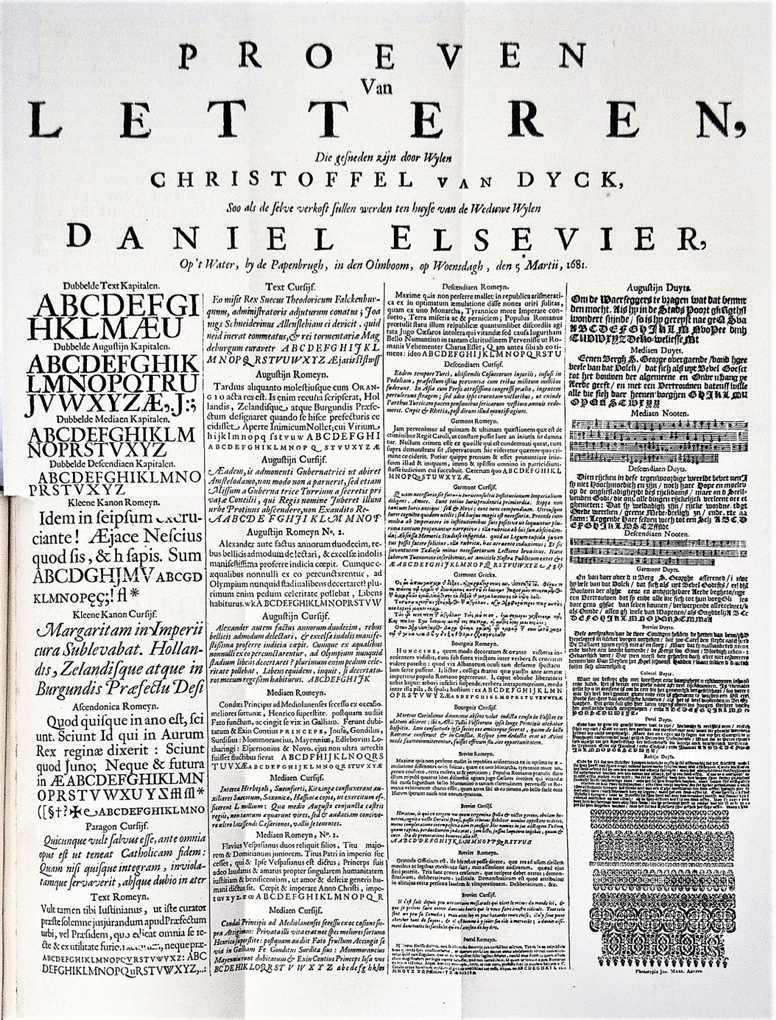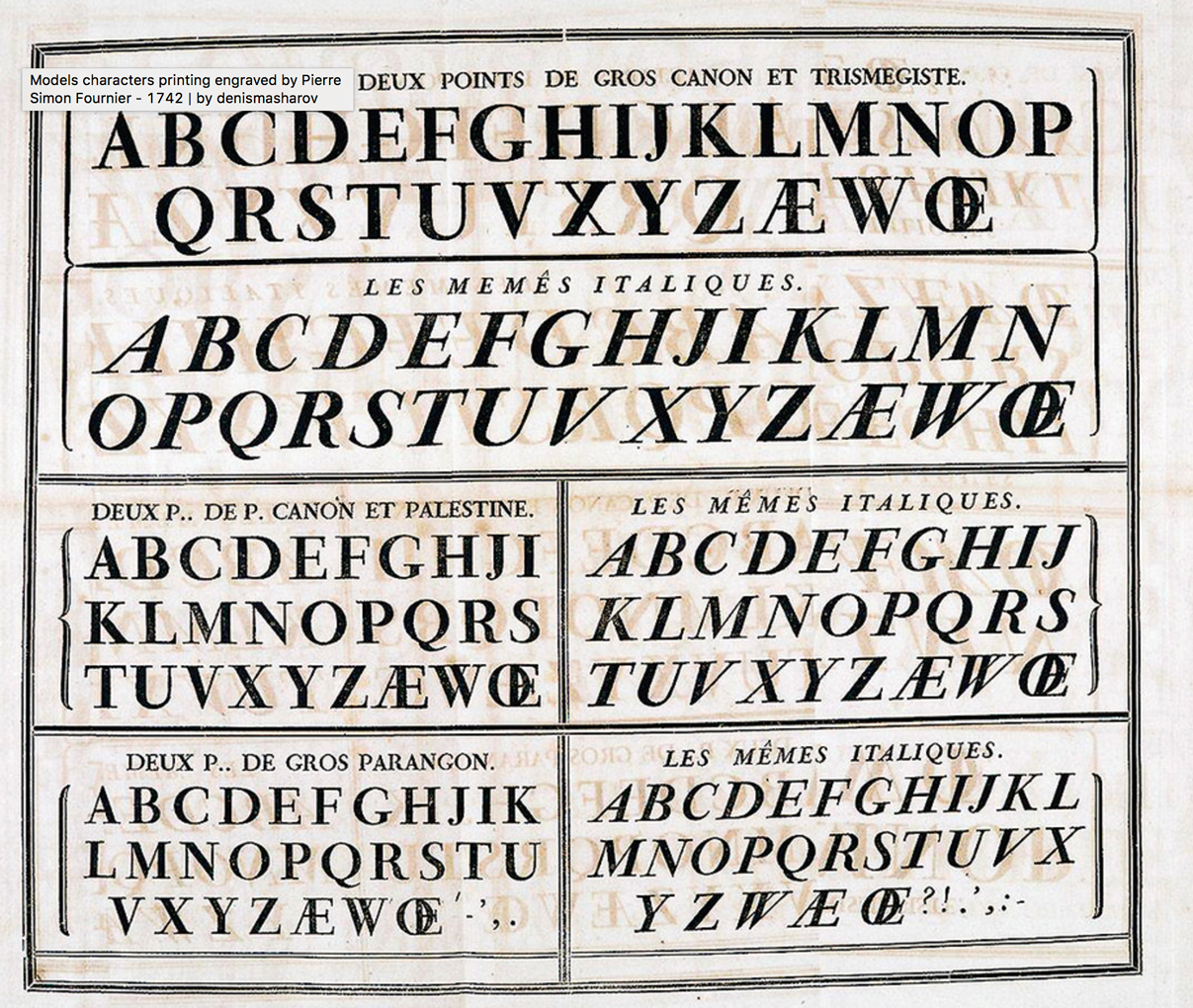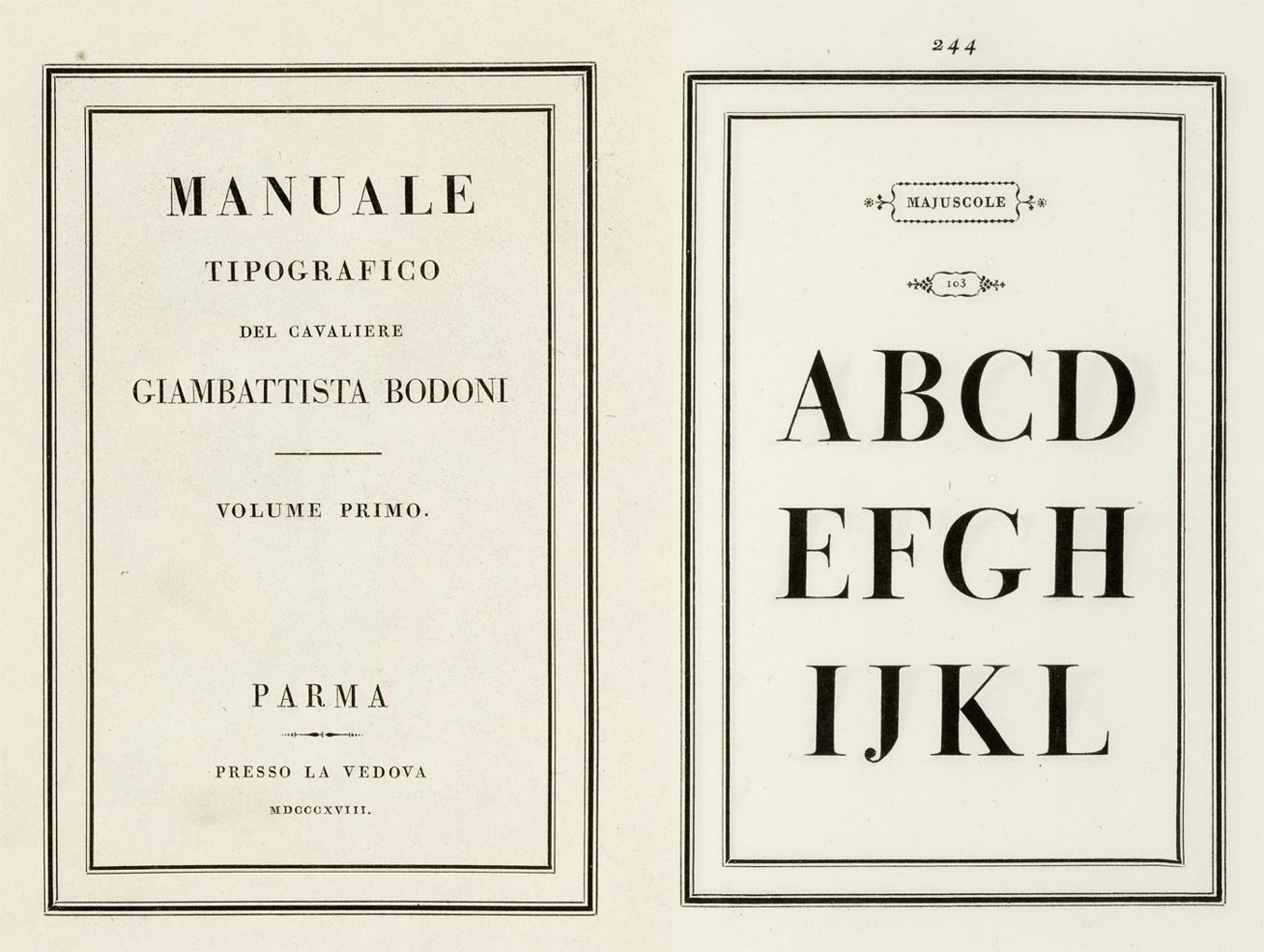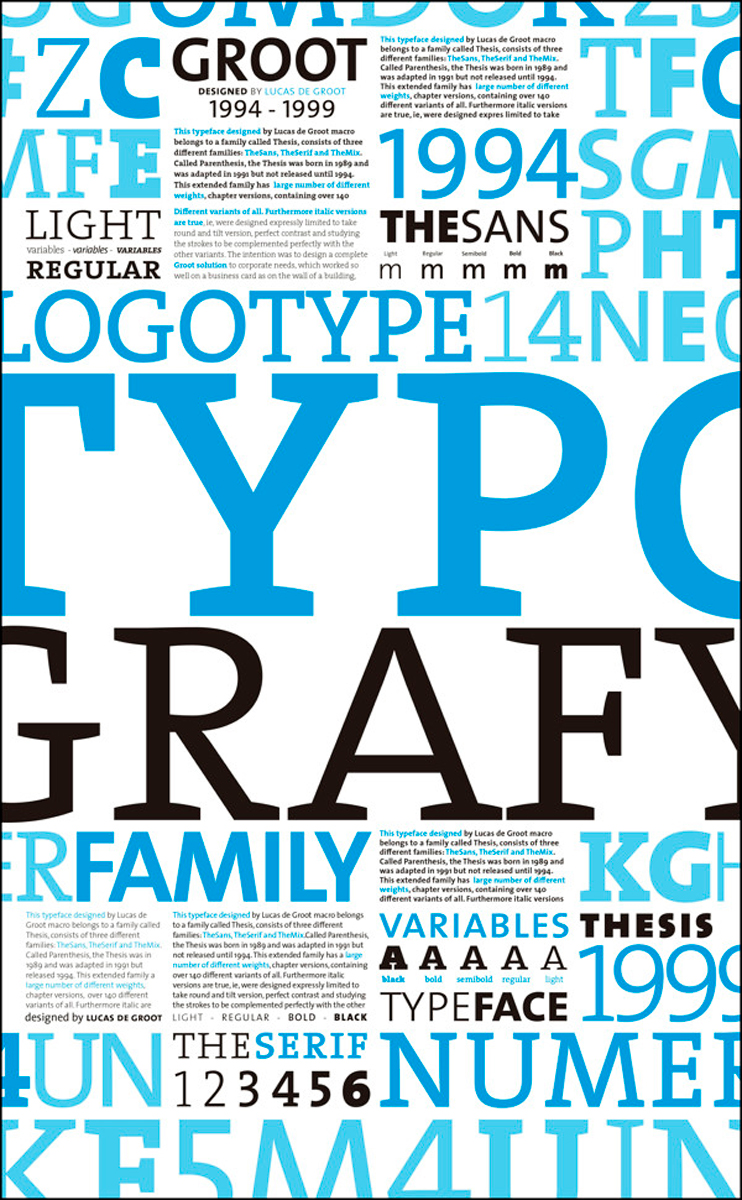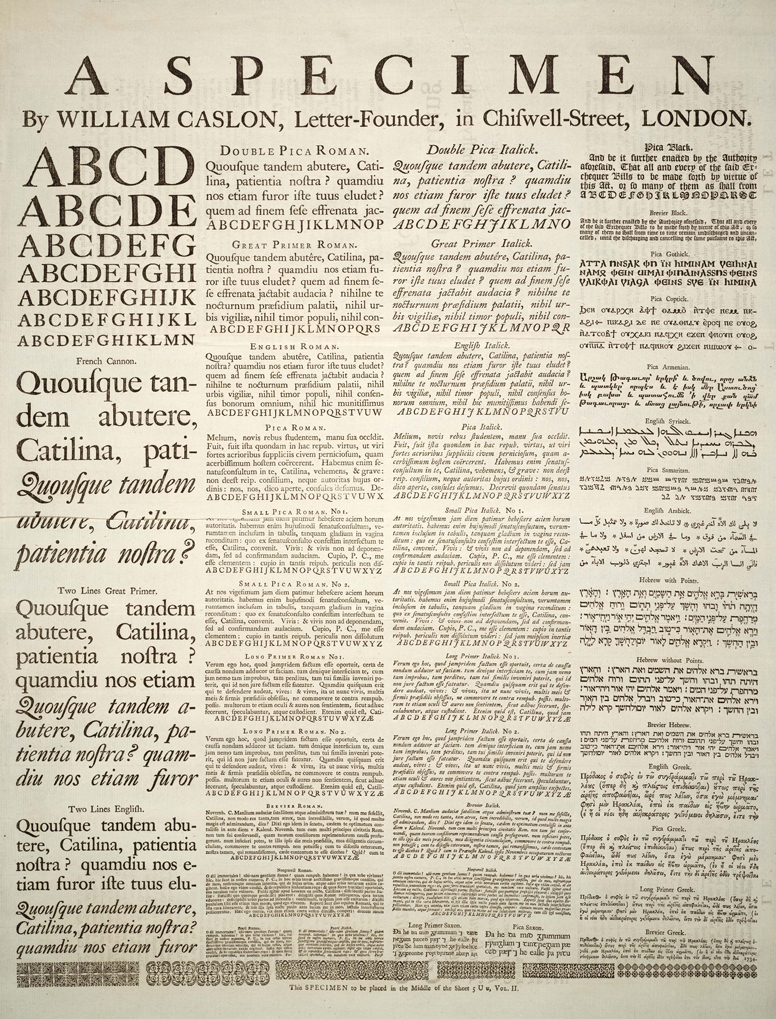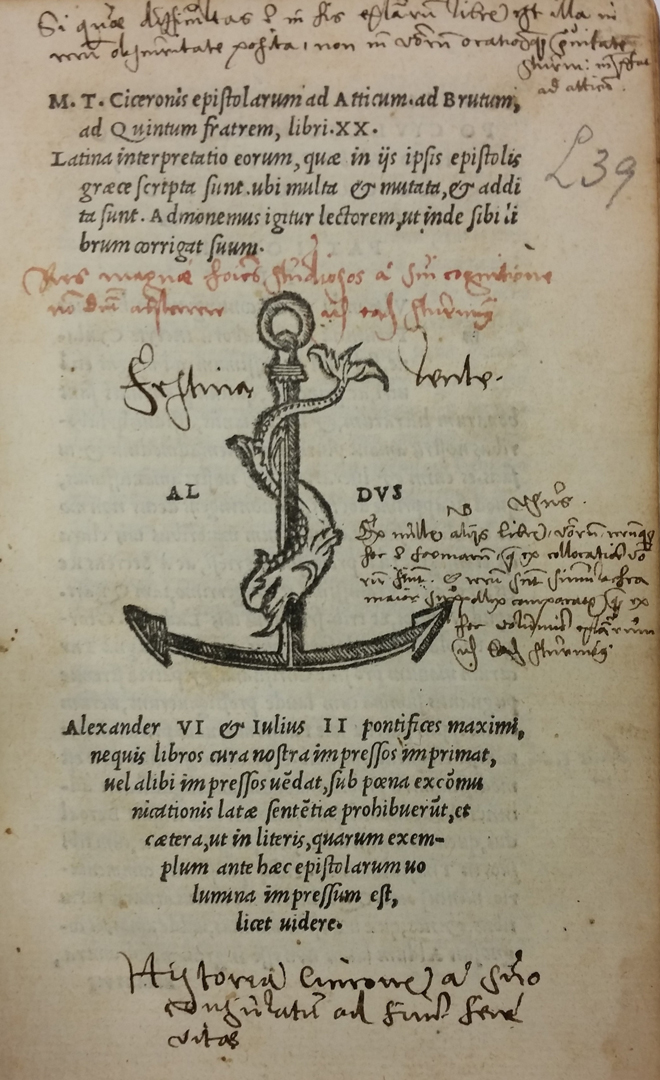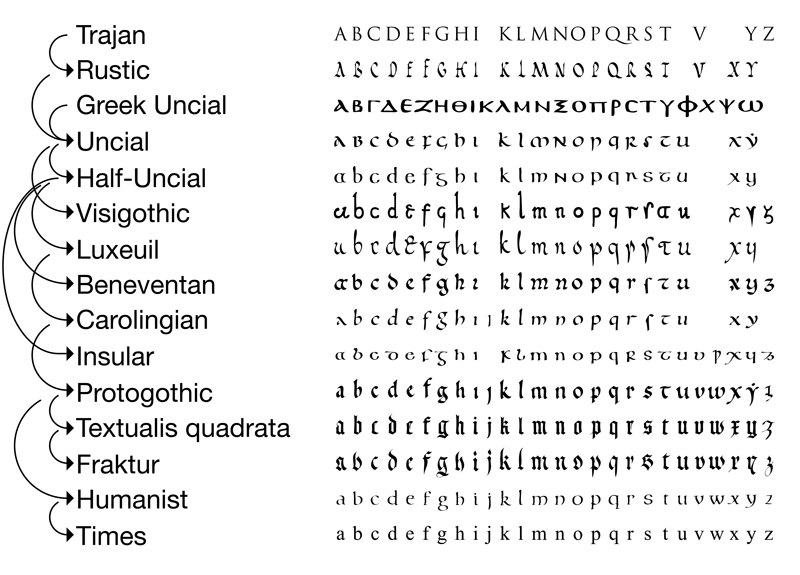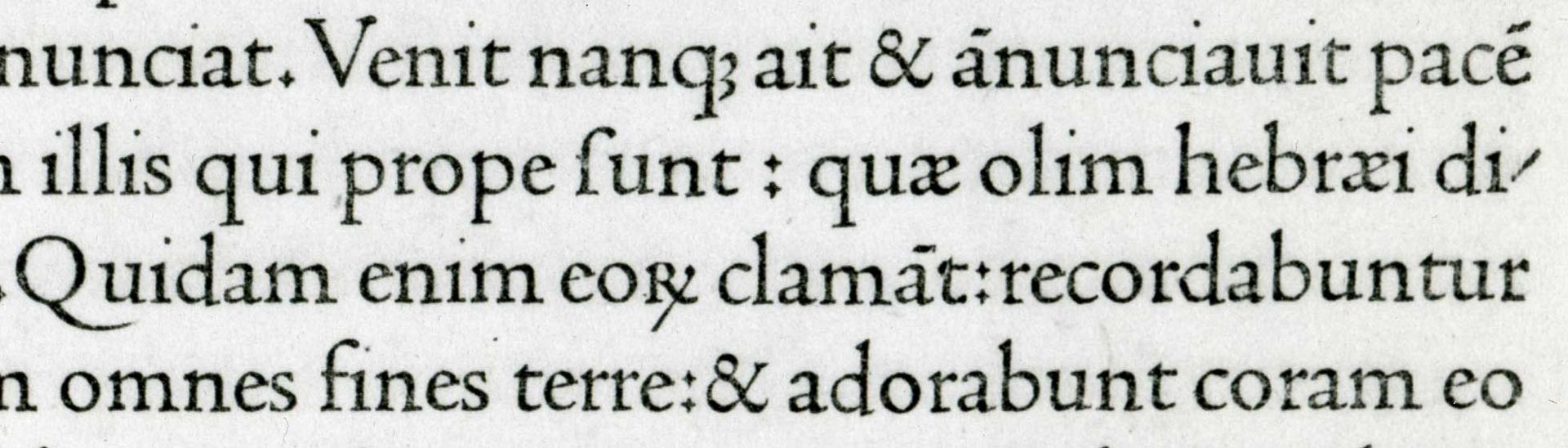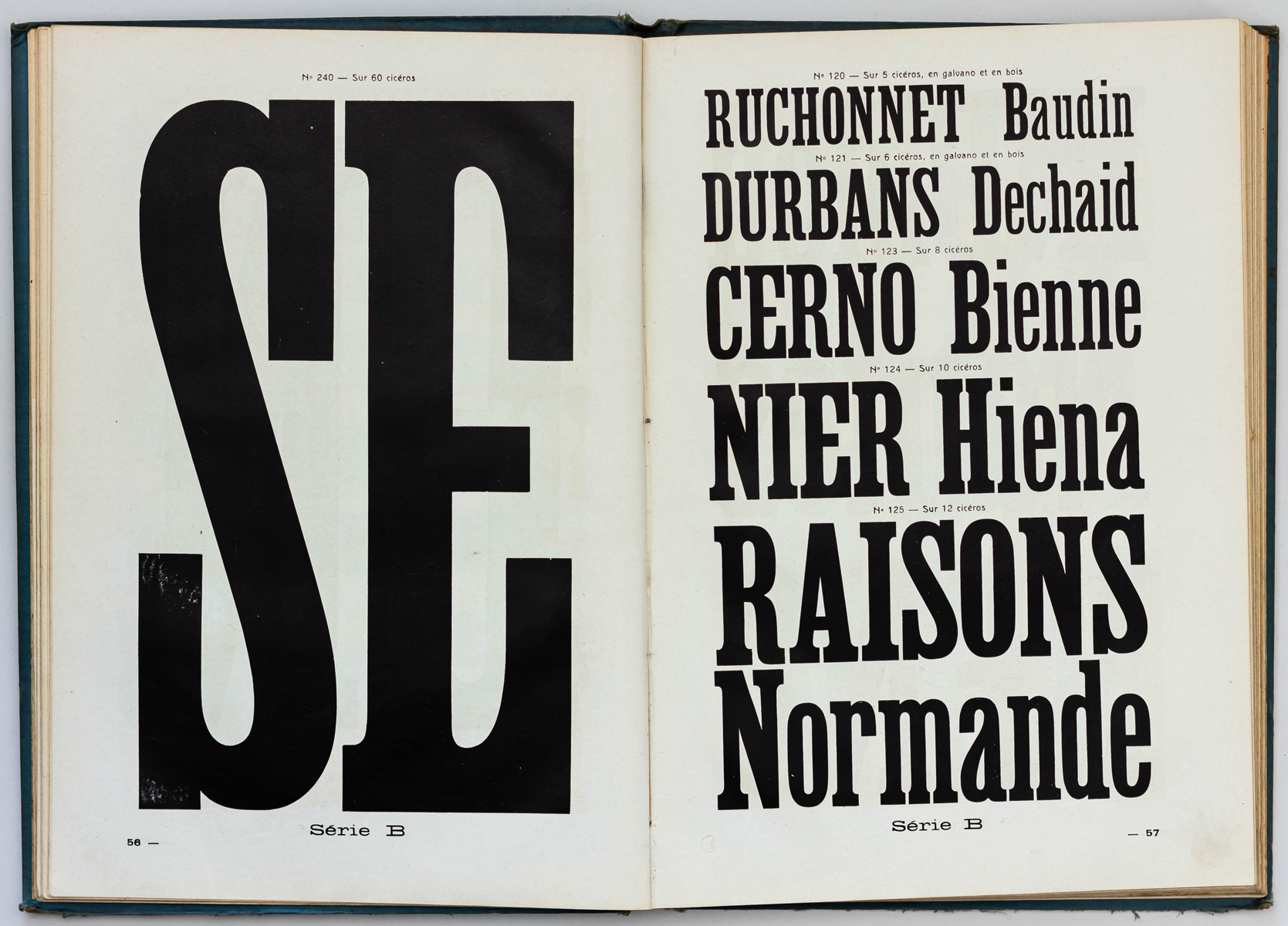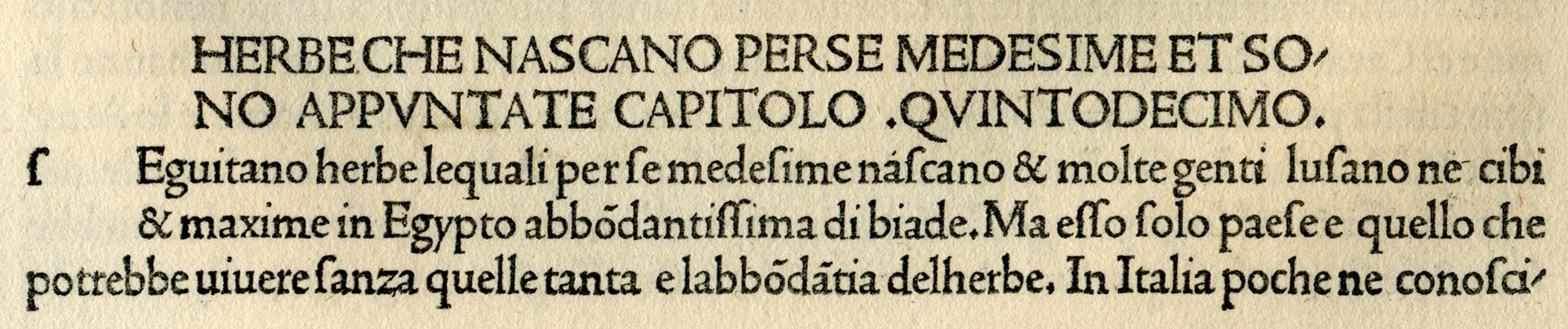
History of Typefaces
Typeface, history of a family
Today, the few cases of typefaces available in a single style are bachelor in the market. It has become an implicit norm to deliver a typeface in several styles, even if it is only a bold or an italic, and no commercial typeface would find its audience without its variations in weight and slant.
However, this notion of family has never been obvious and the technical possibilities of typographic creation software totally liberate the design of an extended family.
I. Family members: classicism
If we narrow our focus to the Latin alphabet, the Roman capital, as engraved on the Trajan column, appeared as the model for the centuries to come. Until the reign of Charlemagne, around 800, Latin writing influenced by the flat pen on parchment took on a more fluid and curved form, facilitating rapid drawing. However, the alphabet remains unicameral: although its shape resembles our lowercase letters, it is merely the evolution of Roman capitals.
Evolution of the Latin alphabet, the Roman capital, the rustica, the uncial, the caroline, the humanist writing.
In prestigious writings, religious as well as diplomatic, and written in Caroline, the first letter of each sentence is an ornamented initials that stands out from the rest of the text. This decorative demonstration also has its interest since it indicates explicitly, and at a glance, the beginning of the sentence. However, the lettering and the body text share a unique graphic style.
It was not until the twelfth century and the blackletter script that the use of the initial capital letter at the beginning of a sentence became widespread, but above all a different spelling between upper and lower case letters, the former taking on an ornamental form when the latter were simpler in their layout. It is during this period that the Latin alphabet becomes bicameral: upper and lower case letters functioning as variants of hierarchy and no longer of historical evolution.
The Renaissance and especially the invention of the printing press will further standardize the uses of the letter. Booksellers became printers and publishers (the term appeared at the beginning of the 19th century in England), establishing the best translations and ensuring that the text was as accurate as possible. Thus, the first incunabula used a bicameral alphabet, although some editions combined typographic text with hand-painted lettering to imitate the prestige of handwritten codices.
Although blackletter script was the norm throughout Renaissance Europe, Italy was more resistant to this evolution and the master writers and calligraphers of the peninsula preferred to draw inspiration from a more glorious past. Antiquity served as a model for architecture and fine arts in general, but it was the Carolingian era that the first humanists were looking for. The writing of chancellery, specific to diplomatic and especially commercial writings, is the great instigator of the generalization of the lower case, especially since the years 1420 and Niccolò Niccoli. It is presented in the form of a calligraphy inspired by Roman capitals and Carolinian lower case letters but inclined to the right under the effect of the expedited gesture. Aldus Manutius (1449-1515) was inspired by it for the publication of the first in-octavo, thus drawing an obvious handwritten inspiration but also taking advantage of the relative width of these characters compared to the blackletter writing: within a reduced format, the text keeps its handwritten aspect, while condensing a rich text.
M.T. Ciceronis epistolarum ad Atticum, ad Brutum was printed in 1513, presumably under the direction of Aldus Manutius.
Italy, in the France of François Ist, remains the model to be equaled, both in the arts and in typography. Claude Garamont (1510-1551) or Nicolas Jenson (1520-1580) became the typographic designers capable of reconciling Italian humanist influence and French elegance. The Roman typefaces of these two men are still praised today for the perfection of their balanced designs.
Thus, during the Renaissance, one does not yet speak of a typographic family but rather of a set of typefaces designed by a single person and having Roman, italic, if not Greek or Hebrew characters for scholarly documents. The homogeneity of the surface is due to the personality of the creator but especially to his national and historical culture.
Detail of a page from De Evangelica praeparatione by Eusebius of Caesarea with the first Roman typeface by Jenson in 1470.
Roman typography by Nicolas Jenson, 1476, on a text by Pliny the Elder, in Fiorentina.
Above all, the real unity of a Renaissance typography lies in its various type sizes, all named according to a delicious nomenclature: gros-parangon, nonpareille, minionette, canon, etc. Each type size is designed to compensate for the effects of printing on the paper. In fact, each type size was designed to compensate for the effects of printing on the paper. Thus, a body of 6 pts enlarged will give neither the body 12 nor the 60 pts. These optical corrections already prefigure the notion of family by establishing the typographic furniture as the logical grouping of the various optical sizes.
It is still in France, probably under the reign of Estienne, that the edition will generalize the use and the writing of the French language. Roman and italics within the same paragraph are codified in order to separate two levels of text: for example, the use of foreign locution and French, between text and quotation, etc. In the same way, Geoffroy Tory (1480-1533) proposed a complete and standardized punctuation, the addition of diacritics, and a reform of French spelling.
William Caslon's specimen sheet (dated 1734 but actually issued from 1738 onwards). Some of the types shown were not cut by Caslon, most notably the French Canon roman (probably cut by Joseph Moxon).
France is still one of the countries at the forefront of typographic reforms, thanks in particular to Pierre Simon Fournier le Jeune. The latter is the inventor of a measurement system corresponding to the current typographic point, but also one of the first to conceive his alphabets as a whole: the various sizes, the roman and the italic, ornate letters, but also a script, borders, vignettes and ornaments are included. The overall harmony is thought out in advance in order to design the book according to a set of appropriate tools.
Specimen of printing types issued by the widow of Daniel Elsevier, most of the specimen showing types cut by Christoffel van Dijck (possibly some by his son Abraham), and some older types. Printed by January 1681 for the auction of the foundry, to take place on 5th March 1681, although ultimately the sale did not take place as Elsevier died before this date. Many of the types shown are by van Dijck (or possibly his short-lived son Abraham) but not all. Specifically, the type of the word "Proeven" is by van den Keere, the Dubbelde Mediaen Kapitalen, Brevier No. 2 and Augustijn No. 2 romans and Paragon, Augustijn, first Mediaen and Garmont italic by Granjon, the Dubblede Descendiaan titling capitals and Text roman by Garamond, and the Mediaen Romeyn No. 2 probably by Pierre Haultin. The Brevier italic (the showings share many but not all characters) is of uncertain attribution; it seems to be a copy of a Granjon italic, whether van Dijck or someone else cut it. The Dubbelde Text and Dubbelde Augustijn capitals may also be by other engravers.
Pierre Simon Fournier, type specimen, 1742.
A few decades later, the Didots, continuing Fournier's advances in terms of units of measurement and typographic designs, came up with a system incorporating lean and fat.
The portrait is quickly painted of all the members of the family: capital and lower case, roman and italic then bold.
Manuale Typografico by Giambatista Bodoni, 1818, Parma. Complete original copy avaiable here.
II. The traditional family: the industrial era
From the appearance of printing in the West until about the 19th century, typographic design remained unchanged: a designer drew inspiration from the past to reformulate in a new context a typeface capable of reflecting the culture of a given time and place. And if Elzevir, Caslon, Fournier, Baskerville, Didot, Bodoni and then other designers provide their alphabets, none of them are thought to belong to the same family. Their homogeneity is due to the tradition as much as to the know-how of each creator.
The only common point is that typography during these many centuries is the quasi monopoly of the edition. The poster, although present, is a communication tool of power reserved for the states.
Specimen. Fonderie Typographique Française. Caractères et vignettes wood. Near 1922 ?. 34 X 24 cm, 280 pages. Personnal collection, Morel archives.
The pivotal point occurs when the industrial revolution and mechanization allow for changes in production processes. The task is segmented, automated; the renderings are homogeneous for mass production and in large quantities. Faced with these production costs and this volume, the market must be considered outside a reduced geographical area. Printing, also affected by the industrial revolution, is automated and prints for a lower cost leaflets, posters, labels, magazines, able to carry far the voice and the image of the emerging modern brands on several continents.
Addressing a large public in a context of fierce competition, companies were looking for any price to reflect their innovations in the typefaces of the time. The first modern type foundries were created and provided printers with a large catalog, including both publishing classics and fancy typefaces, either cast or engraved in large sizes. It is in this industrial context that the editorialization of typefaces will group together under the term of family styles previously attached only to certain cultures, to certain creators. The Didot typefaces are thus grouped in roman, italic and in various weights, thus making it possible to hierarchize the text with more flexibility or to emphasize one or more words within a paragraph.
Still, even the very traditionalist milieu of publishing will emancipate itself from the past to put on the page works overloaded with ornaments satisfying the taste of the new bourgeoisie who have recently reached the privileges of bibliophily.
Still for advertising purposes, sans serif typography exploded on posters covering entire city walls. And in order to make the best use of the whole surface, variants from condensed to extended styles multiply. From a small family to a large one. The goal of a type foundry is no longer to respect tradition (roman, italic, historical typefaces) but to provide tools to adapt to all contexts, from classical publishing to modern advertising. Moreover, this graphic exuberance is encouraged by a liberated commercial spirit: variants can be added under the pressure of the printers and at the request of the foundry. For all that, the declination in weight and width is not necessarily entrusted to its author but to small hands less scrupulous and faithful to the original drawing.
Akzidenz Grotesque, for example, unfolds in a family of four weight and several width, three of which are condensed and three extended, between its first publication in 1898 and 1906.
Univers, Adrian Frutiger, 1957, Fonderie Deberny & Peignot, Paris, France.
Until 1957, type designers remained artists working as craftsmen: the eye was their only judge of the accuracy of a curve or a weight. However, when typeface families were advertised in specimens, in the pages of magazines or on promotional posters, the scale of the work proved to be titanic. In order to provide the best work in a short time, the young Swiss Adrian Frutiger (1928-2015), then hired by Charles Peignot at the French foundry Deberny & Peignot, will take back his sketches drawn during his training at the Kunstgewerbeschule of Zurich to give birth to the Univers in 1957, a family of 4 weights, 4 width and 7 obliques. When Peignot asked him to finalize the drawing of the whole family as quickly as possible, Frutiger took up his copy and thought of a system allowing him to have an overview of each glyph declined according to these 21 styles. He then draws curves showing the progression between each point of each character. The space between each point is calculated in a rational way: the artist-craftman operates like an engineer. This method, although personal and mathematical, will become the standard in the profession and each extended typographic family is designed by respecting the logic set up by Frutiger but inherited from a past and empirical tradition.
III. The blended family: the limits of modernism
Paul Renner's type design is mostly the extension of the Futura family from 1927 till 1957.
The modernism of the 1920s and 1930s was an avant-garde in typography: the formal experiments or those seeking to create universal alphabets are proof of this. Before the appearance of Frutiger's Univers in 1957, Futura was praised by the profession as an excellent sans serif typeface capable of being used for both advertising and publishing. As early as 1924, Paul Renner sketched out a geometric alphabet with radical forms that led, three years later, to the publication of the first weights. Throughout his career, Renner will under pressure from Bauer Type complete the family of a set of relatively disparate styles. On the one hand, Futura in its purest form is declined in its weights of light, semi-bold, bold, ¾ bold, and progressively in its italic and condensed declinations. But on the other hand, from 1929 the Futura Black breaks the logic by presenting an atypical typeface, a kind of geometric stencil typically Art Deco. The infidelities were repeated in 1932 with the Futura Licht (enlightened) and the Display.
It is difficult to know the reasons for this typographic expansion. The success of the typeface in Germany, in Europe and then throughout the world established Futura as a trademark (protected in 1953) and attracted the attention of the profession, which was then affected by an international crisis. As a proof, the Steile Futura, although designed by Renner, is totally foreign to Futura, so that it is known under other names abroad: Bauer Topic for the UK and the USA, Vox in Spain, and finally Zénith in France.
An Helvetica phototypesetting disc from Berthold Diatype. Copyright: Lars Schwarz
In the post-war period, modernism quickly ran out of steam in the face of the contradictions of unbridled capitalism. The youth, from the middle of the 1960s, asserts itself in designs rejecting this modern formalism becoming a new tradition: colors, forms, music are judged as contestative but define what will become a vast subculture.
In the same logic, typography is reinventing itself as much through its young generation of professionals as through new technologies: after 500 years of movable typography, phototypesetting allows lettering designs on film to become the matrices for flashing and then offset printing.
Dematerialized, the typography loses however in finesse. Indeed, the same matrix in 6 pts size is enlarged to provide all the sizes, thus forcing the type designers to make the exception a standard: the counter-forms are open, the serifs are marked, the slashes are thick, so that in small sizes the typeface remains readable.
But phototypesetting also liberates typography by allowing effects, outlines, patterns, etc., so many fantasies that will mark the breakup of the concept of family.
Agfa Rotis by Otl Aicher, 1988, Agfa.
In 1988, however, it was the pope of German modernism Otl Aicher (1922-1991) who published a family that broke with tradition even more. Rotis brings together serif, sans-serif, semi-serif and semi-sans-serif styles, thus bringing together the antagonism of classical typography in a coherent style. Aicher proves that the logic of the past is not necessarily relevant today. Tradition, if it is to endure, must be understood and reinterpreted while retaining its essence.
This is not an isolated case, since Summer Stone published ITC Stone in 1987 in both sans serif and serif versions, and in 1988 in ITC Stone Informal. The commercial success as well as the notoriety of the designer prompted the publication in 2005 of the ITC Stone Humanist.
History frequently repeats itself by intertwining technological progress and artistic creativity. For example, 1984 marked the introduction of the Apple Macintosh and the birth of Emigre, Inc., a digital foundry established in Berkeley by Rudy VanderLans (1955-) and Zuzana Licko (1961-). The California firm now appears to be the prototype for most independent type foundries. The digital experiments of the beginning offer an immense formal freedom that totally redesigns the relationship to the text, at the time of MTV and cable channels but also of the beginning of the internet. Finding logic in the apparent chaos of postmodernism seems unrealistic.
In response to Emigre, the guardians of the modernist tradition respond with projects in which the computer perfects what Frutiger imagined to be done by hand. Through a game of interpolations between styles, the designer obtains the intermediate nuances. A family composed of a light, a normal and a black, allows to obtain thanks to the Multiple Master technology a vast panoply covering the intermediate weights. The case of Lucas de Groot's Thesis is the demonstration of such a philosophy. Conceived between 1994 and 1999, the family is deployed on a vast set of styles: TheSans and its variants Mono and Typewriter (33 styles), TheSans SemiCondensed (16 styles), TheSans Condensed (16 styles), TheSerif (16 styles, then again 32 styles for the SemiCondensed and Condensed), and TheMix (64 styles in total). In the end, the family includes 177 children, to which we must add the style variants offered by TheAntiqua and TheStencil.
Thesis by Lucas de Groot, 1994-1999.
Since 2016, superfamilies have become widespread thanks to the new Open Type 1.8 standard including Apple's TrueType GX variations and simply called Variable Font. Interpolation passes to the side of the user, who, through a set of sliding rules, will refine the typography according to criteria thought by the designer. In a much more relevant way, optical corrections, abandoned since the phototypesetting era, find their raison-d'être here. Indeed, the CSS parameterizing the styles of the web pages also allows the programming of the display style according to the size of the screen and thus to the display terminal. You are surfing on a site from your smartphone, in this case the designer must indicate the display of the typography with an adapted optical body.
Of course, creativity is also a way of turning the useful into the unexpected, and variable typography also exploits interpolation in a much more fanciful way than varying weights, casts, optical bodies, or slants.
Some typographies take advantage of progressive variations of interpolations in order to establish an animation of the letter by slight deformation, by flashing of a vignette pattern, or by metamorphosis of a glyph into another. The use might seem absurd in the case of printing, but dynamic screen display allows animation by scrolling the screen or any other ingenious process programmed in CSS.
Tracing the overall plan of the evolution of the notion of typographic family teaches us a lot about our uses of text. From a handwritten writing characterized by the respect of forms evolving according to the geographical and historical cultures, the craft of the first printers standardized the form of the letter and its printed use, thus respecting a social prestige associating the written word and a certain idea of the tradition. Thereafter, the commercial uses of the industrial revolution, by their research of visibility, exploit less conventional uses but taking more into account the formal characteristics of the letter: grease, hunting, inclination. A certain modern maturity finally brings the reasoned method allowing to conceive effectively the whole of these styles. Contemporary computer technology only automates and makes the task easier and faster and pushes the uses in an unexpected return to the respect of traditions, while allowing the game.
Today, it is difficult to imagine the future of typography. A digital typography file already contains a set of glyphs with several writing systems, styles and variant sets. Extending these possibilities to more glyphs would be quite possible, but it is the uses that definitely dictate the technological and design evolutions. The web has become our main communication medium, relegating print to a secondary and more perennial medium, still guaranteeing a certain prestige.
To a lesser extent, 3D printing applied to letters is still anecdotal, and one could naturally think that the production of printing dies on demand or the realization of signs and signage in volume remain sectors to be exploited.
The exploitation of artificial intelligence is still experimental and the artistic uses are still in the realm of the playground generating unexpected forms and not necessarily exploitable as such in a professional setting.